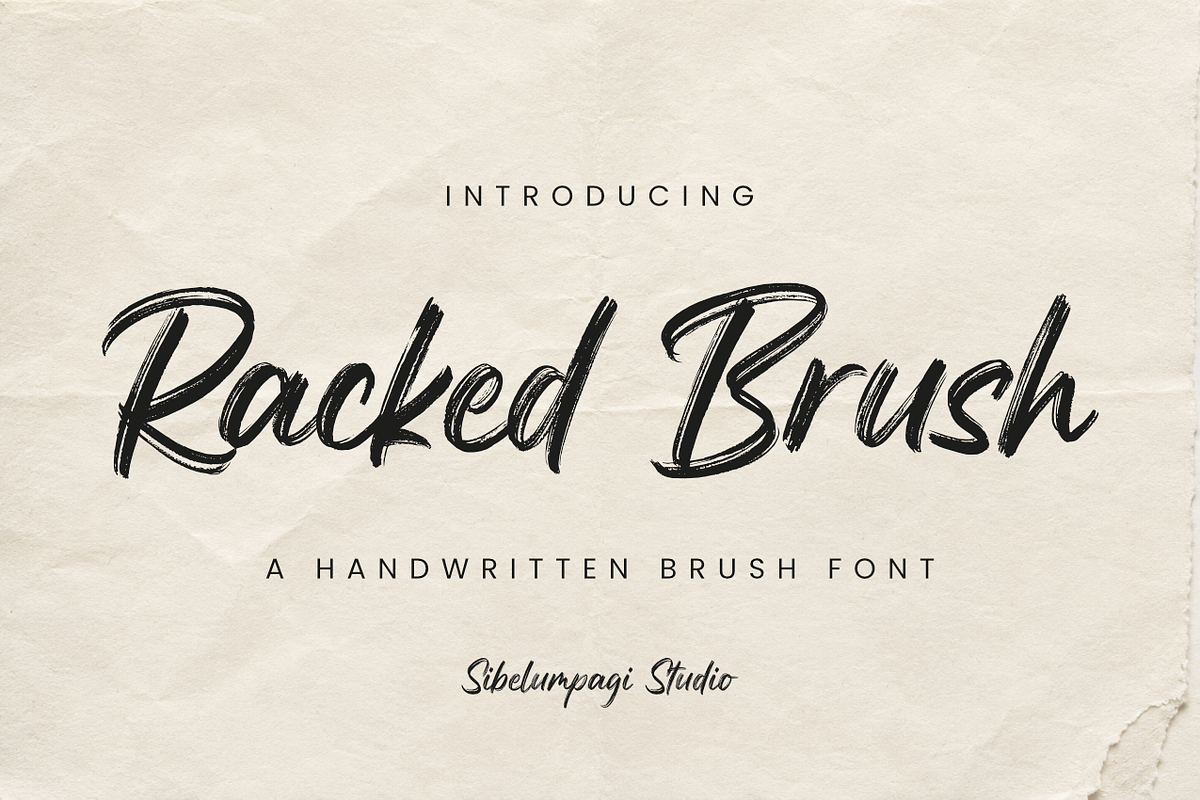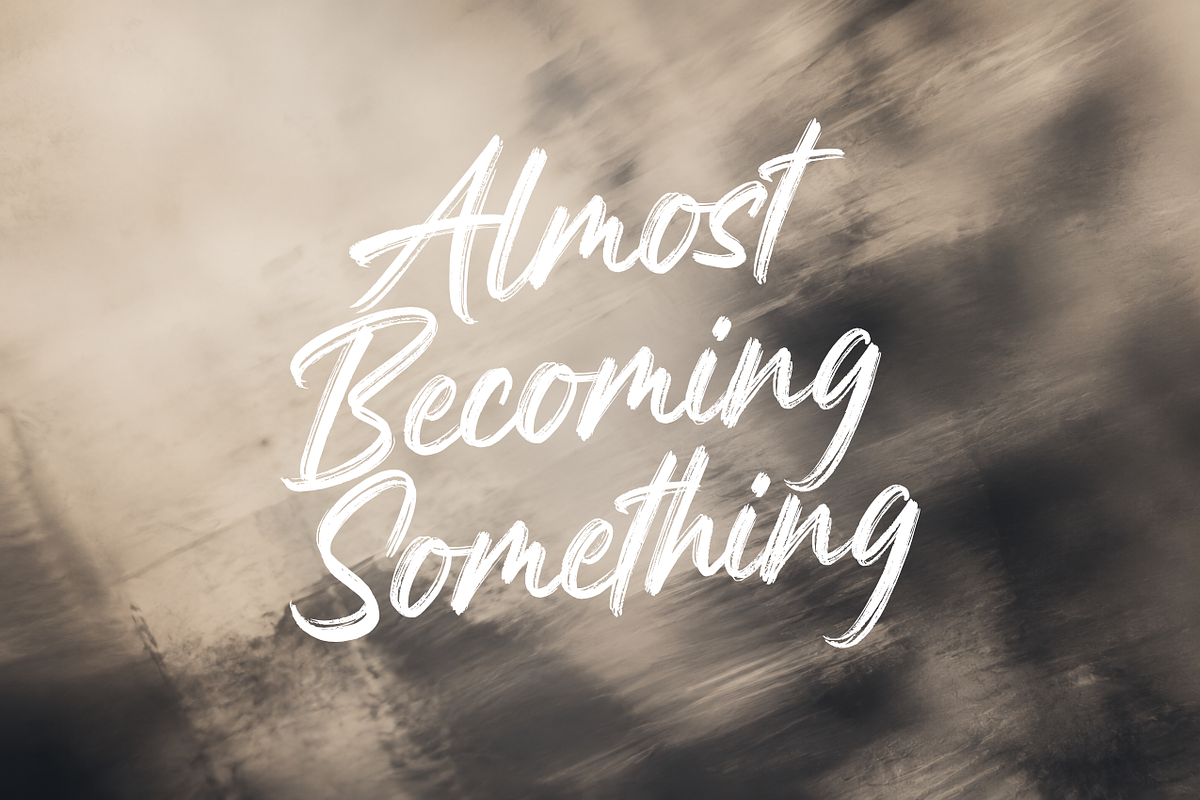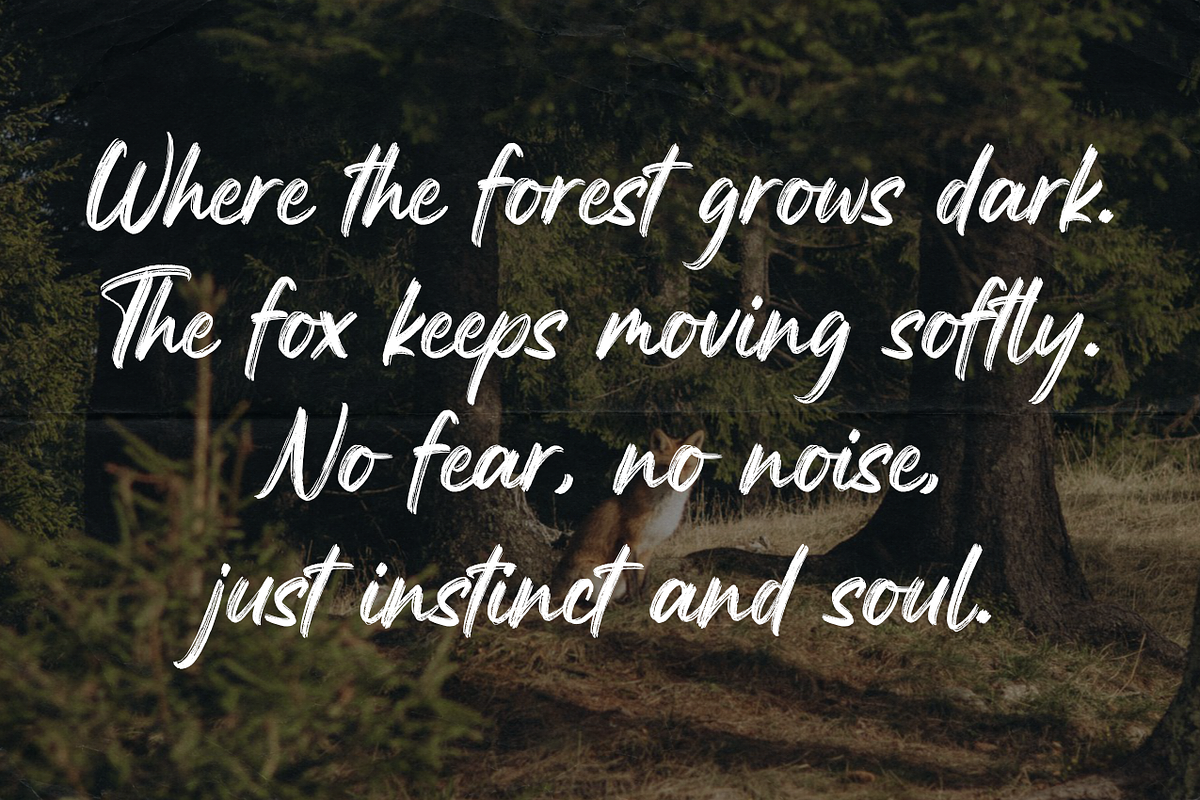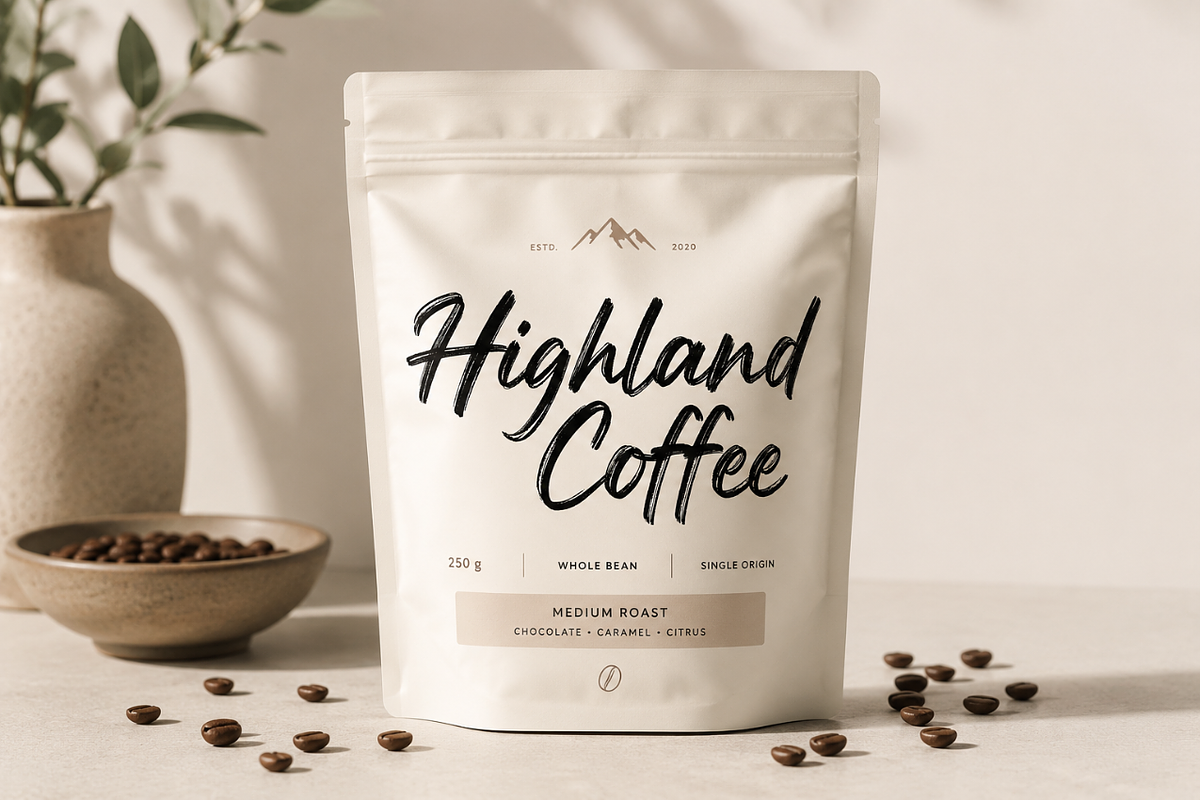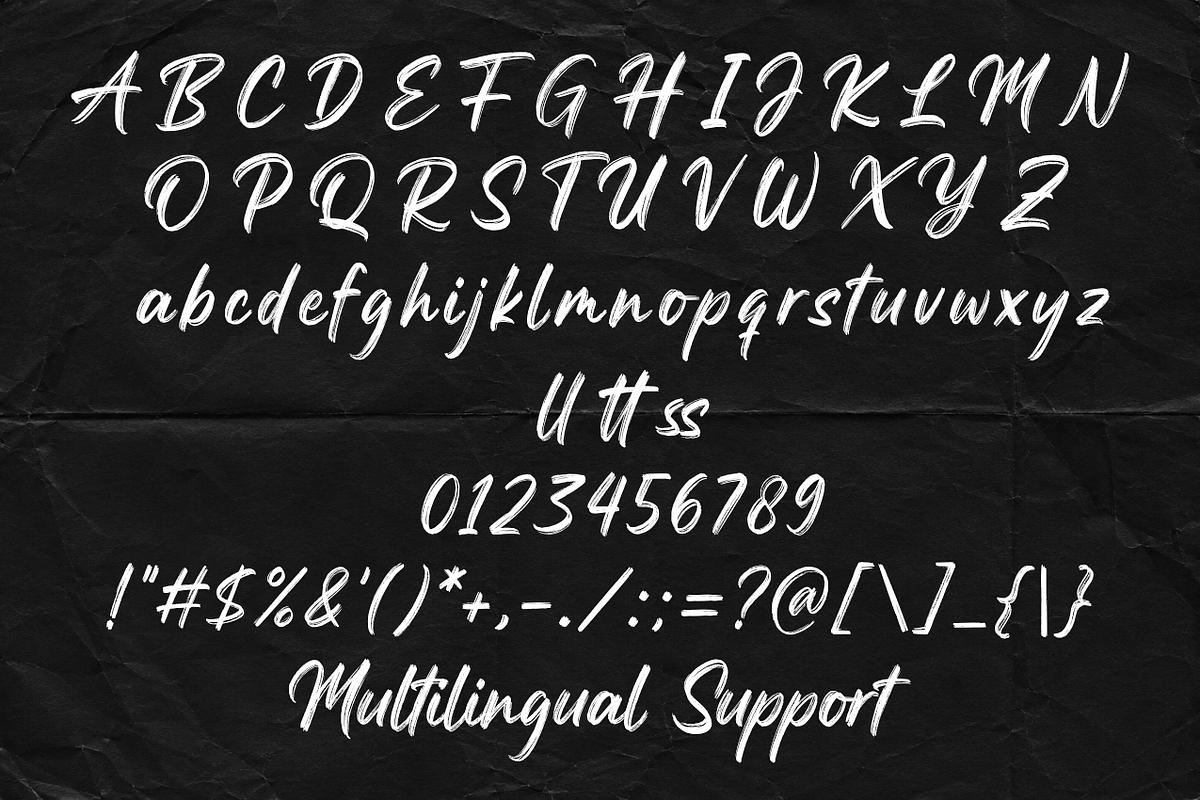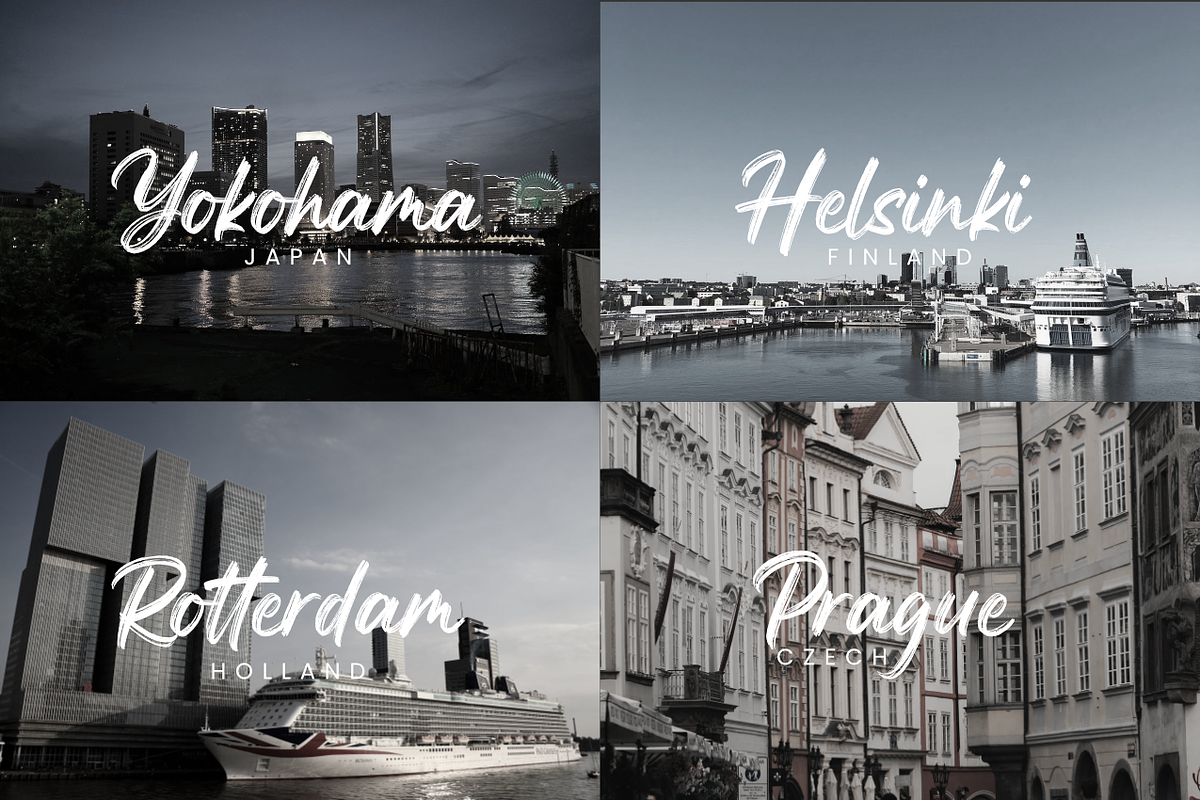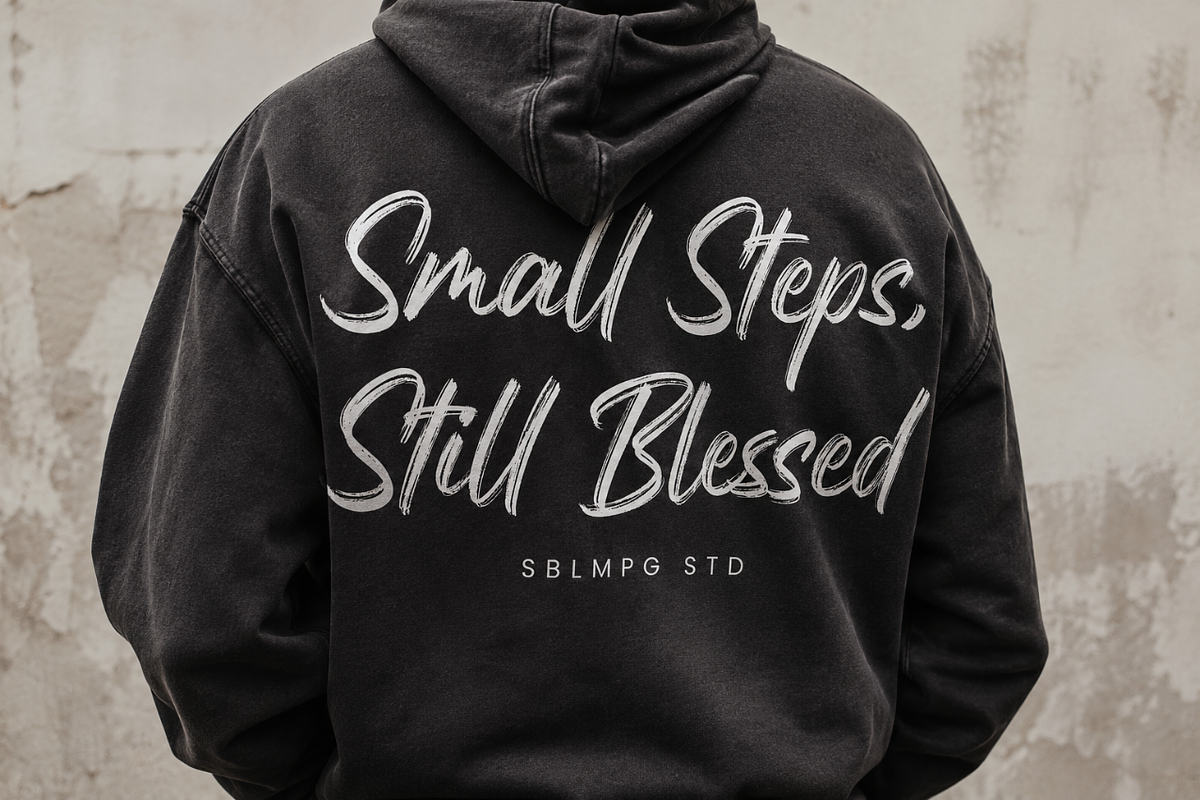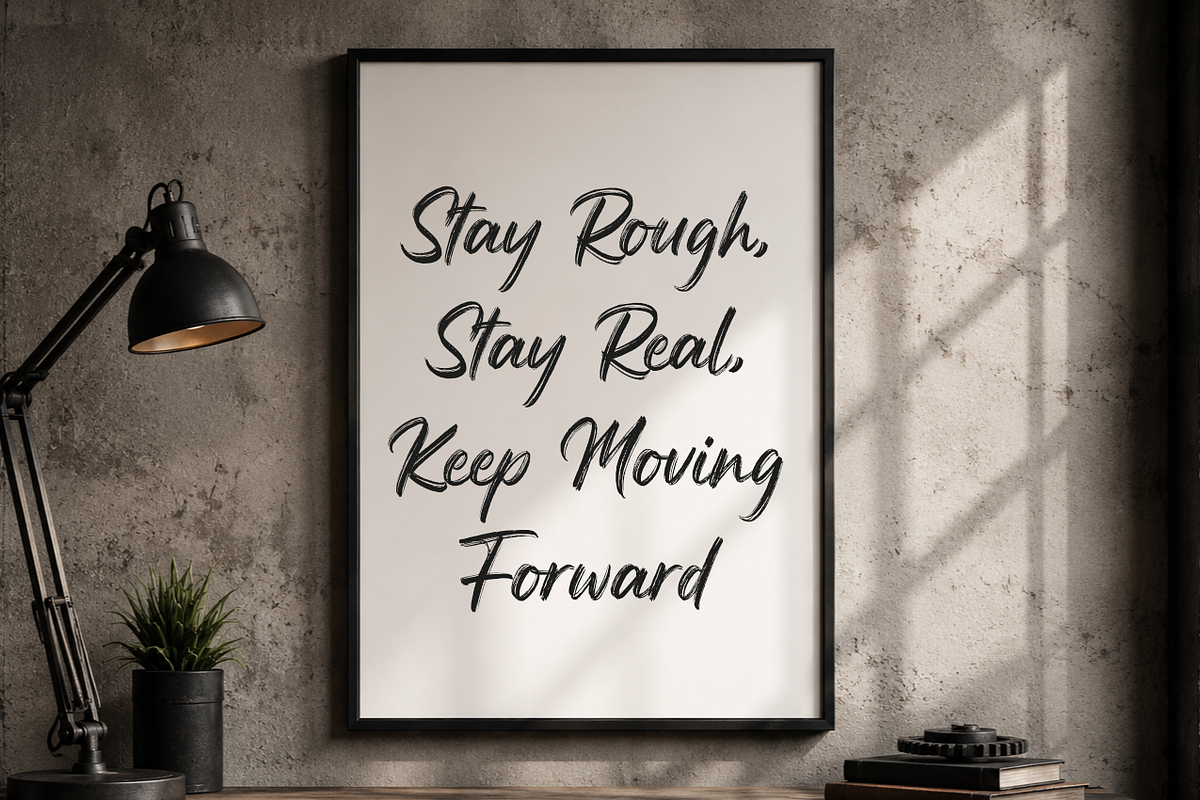
Racked Brush - Handwritten Font
Racked Brush is a handcrafted handwritten brush font designed with bold strokes, natural texture, and expressive movement. It brings a raw and energetic personality to your design, making it perfect for projects that need a strong handmade touch.
With its dynamic brush style and imperfect details, Racked Brush is ideal for creating eye-catching logos, branding, posters, apparel designs, product packaging, album covers, social media posts, quotes, and more. Its handwritten character gives every design a more personal, authentic, and creative feel.
Whether you are working on a bold brand identity, urban-style merchandise, music artwork, or expressive promotional graphics, Racked Brush helps your typography stand out with confidence and attitude.